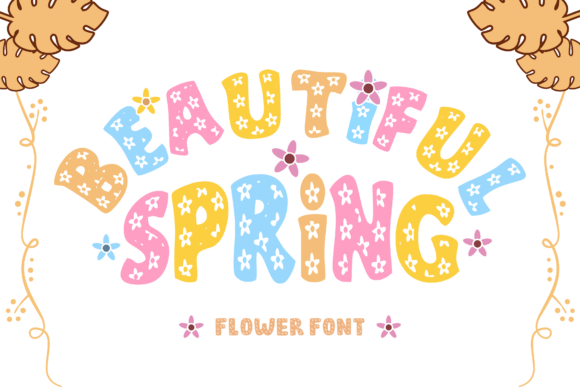
Beautiful Spring Font: A Charming Display Font for Your Creative Projects
As the seasons change and spring arrives, it’s the perfect time to refresh your design projects with a beautiful and charming font. Introducing “Beautiful Spring,” a stunning spring display font that captures the essence of vintage design. This delightful font is sure to add a touch of whimsy to any project, making it perfect for posters, logos, web, social media, comics, and creative titles that need a little retro flair.
The Essence of Vintage Design
“Beautiful Spring” is a font that embodies the spirit of vintage design. Its cheerful flowers and eye-catching colors evoke a sense of nostalgia, reminiscent of the fun styles of the past. The font’s unique character is inspired by the classic designs of the 19th and 20th centuries, with a modern twist to make it suitable for contemporary projects.
A sample of the Beautiful Spring font in use
Key Features of Beautiful Spring Font
- Unique Character: “Beautiful Spring” has a distinct personality that sets it apart from other fonts. Its charming flowers and colorful design make it perfect for projects that need a touch of whimsy.
- Vintage Inspiration: The font’s design is inspired by classic vintage styles, making it ideal for projects that require a retro look and feel.
- Highly Versatile: “Beautiful Spring” can be used for a wide range of projects, including posters, logos, web design, social media, comics, and more.
- Easy to Read: Despite its decorative nature, the font is highly legible, making it suitable for use in titles, headings, and short paragraphs.
Perfect for a Variety of Projects
“Beautiful Spring” is a highly versatile font that can be used for a wide range of projects. Here are some ideas to get you started:
- Posters and Flyers: Add a touch of whimsy to your posters and flyers with this charming font. It’s perfect for advertising events, promotions, and products.
- Logos and Branding: Use “Beautiful Spring” to create a unique and memorable logo for your business or brand. The font’s vintage inspiration makes it perfect for companies that want to evoke a sense of nostalgia and tradition.
- Web Design: Add a touch of personality to your website with this beautiful font. It’s perfect for headings, titles, and short paragraphs.
- Social Media: Use “Beautiful Spring” to create eye-catching social media graphics, including Facebook posts, Twitter headers, and Instagram stories.
- Comics and Illustrations: The font’s playful and whimsical nature makes it perfect for use in comics, illustrations, and other creative projects.
Why Choose Beautiful Spring Font?
There are many fonts available that claim to be vintage-inspired or whimsical, but “Beautiful Spring” stands out from the crowd. Here are just a few reasons why:
- Unique Design: The font’s unique character and design make it truly one-of-a-kind.
- High-Quality: “Beautiful Spring” is a high-quality font that is designed to look great in any context.
Tips for Using Beautiful Spring Font
Here are a few tips for getting the most out of “Beautiful Spring” font:
- Use it Sparingly: While “Beautiful Spring” is a beautiful font, it’s best used sparingly. Use it for headings, titles, and short paragraphs to add a touch of whimsy to your project.
- Pair it with Other Fonts: “Beautiful Spring” pairs well with other fonts, including sans-serif and serif fonts. Experiment with different pairings to find the one that works best for your project.
- Experiment with Colors: The font’s colorful design makes it perfect for use with bright, bold colors. Experiment with different color schemes to find the one that works best for your project.